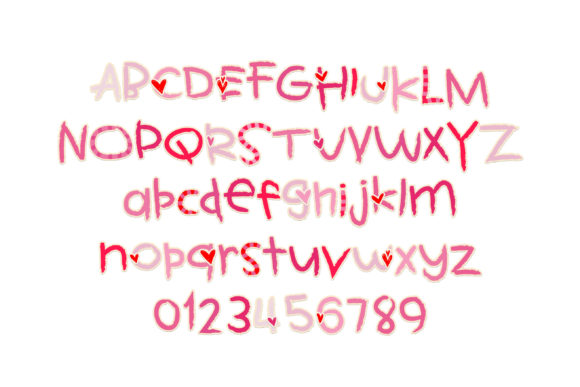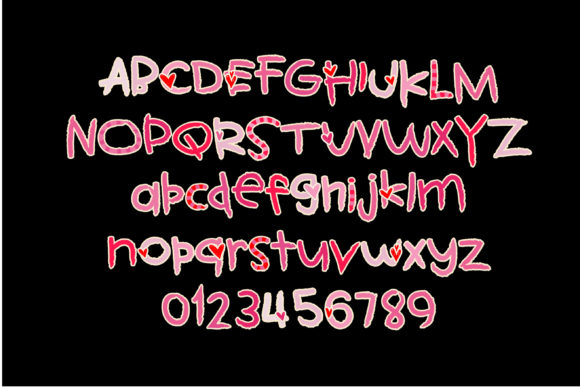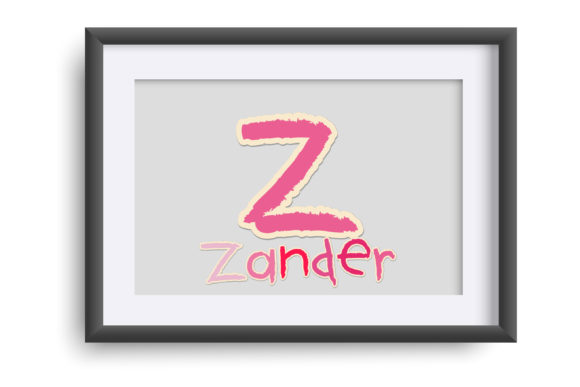
Introduction to Kid’s Love Font
Who among us hasn’t been inspired by the innocence and joy of a child’s love? As designers, we often look for that spark to bring to our creative projects. For me, it’s a simple moment like watching a child’s face light up when they create something with their own hands. That’s exactly what the Kid’s Love Font is all about – capturing the essence of childhood love and innocence in a beautiful, high-quality design resource.
With its vibrant pink and red color palette, youthful lettering, and adorable hearts, this full-color font is a treasure trove for designers looking to add a playful touch to their designs. Whether you’re working on a personal project or a commercial one, the Kid’s Love Font is sure to bring a smile to your clients’ faces and add a touch of whimsy to your design. And the best part? It’s available for free download, making it an accessible design resource for all.
Key Features of Kid’s Love Font
- High-quality design: Kid’s Love Font is a beautifully crafted font, perfect for creative projects that require a touch of warmth and love.
- Unique characteristics: Kid’s Love Font features a unique, handwritten style that is sure to add a personal touch to any design project.
Honest Review: Kid’s Love Font
As a designer, I’m always on the lookout for high-quality design resources that can elevate my creative projects. The Kid’s Love Font caught my attention, and I was excited to try it out.
What works well: ✨ The Kid’s Love Font has a beautiful, playful design that’s perfect for kids-related projects, educational materials, or any other creative endeavor where a fun and youthful vibe is required. The font is highly customizable, allowing users to adjust the size, color, and style to suit their needs.
Limitations: ⚠️ While the Kid’s Love Font is generally well-designed, I found that the font’s compatibility with certain software can be a bit hit-or-miss. Additionally, the font’s style may not be suitable for all types of projects, particularly those that require a more professional or formal tone.
Overall impression: I was pleasantly surprised by the Kid’s Love Font’s quality and versatility. While it may not be perfect for every project, it’s an excellent addition to any designer’s toolkit. If you’re looking for a fun and playful font for your next creative project, I’d definitely recommend giving the Kid’s Love Font a try.
The Kid’s Love Font is a free design resource ideal for creative projects that require a high-quality, child-friendly font. This font features a transparent background, making it easy to use in various design applications.
To get the most out of the Kid’s Love Font, use it in creative projects such as:
- Children’s party invitations and decorations
- Education materials and worksheets
- Children’s book covers and illustrations
The Kid’s Love Font is perfect for designers, educators, and parents looking for a high-quality, free design resource. It’s ideal for creating engaging and child-friendly designs that require a transparent background.